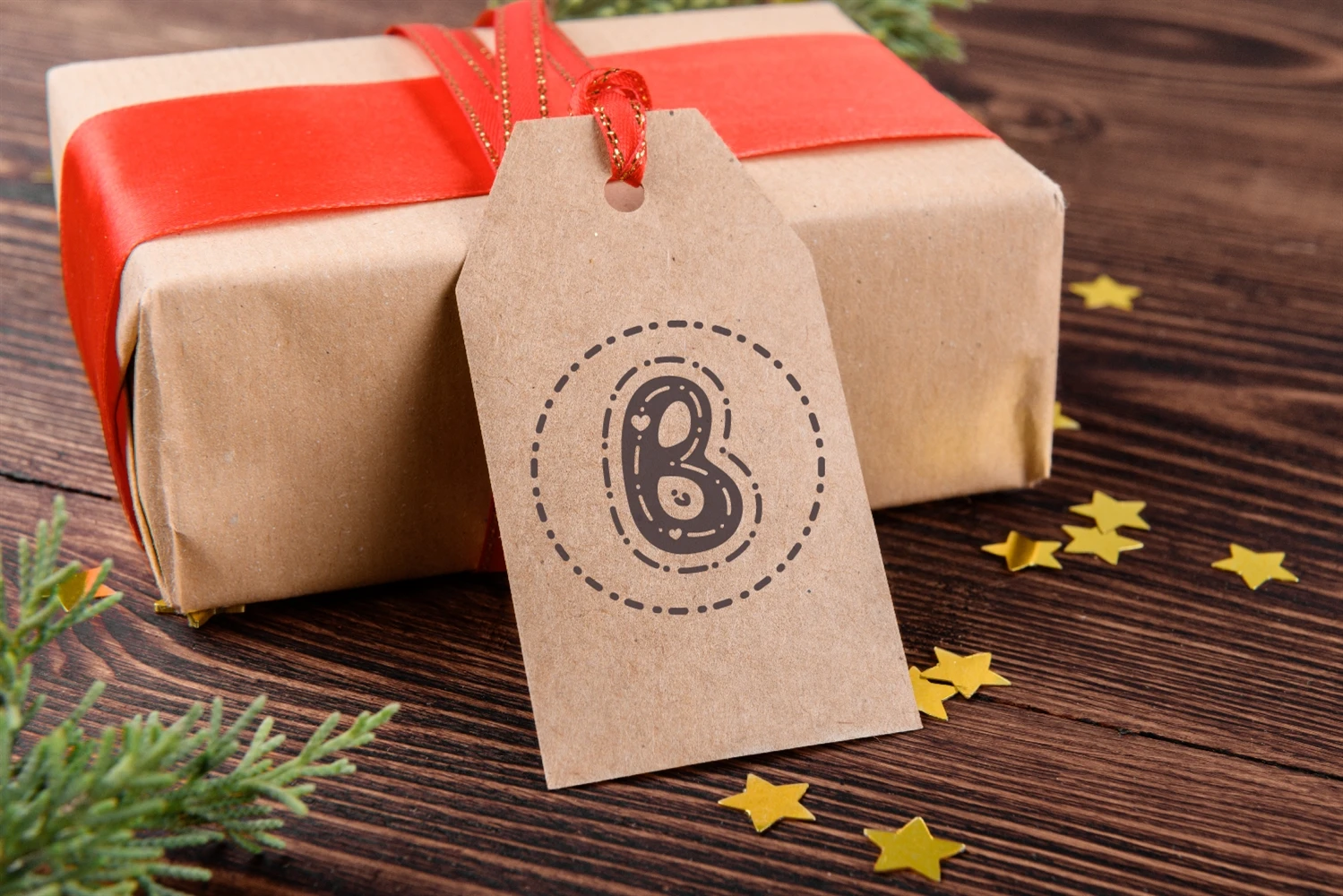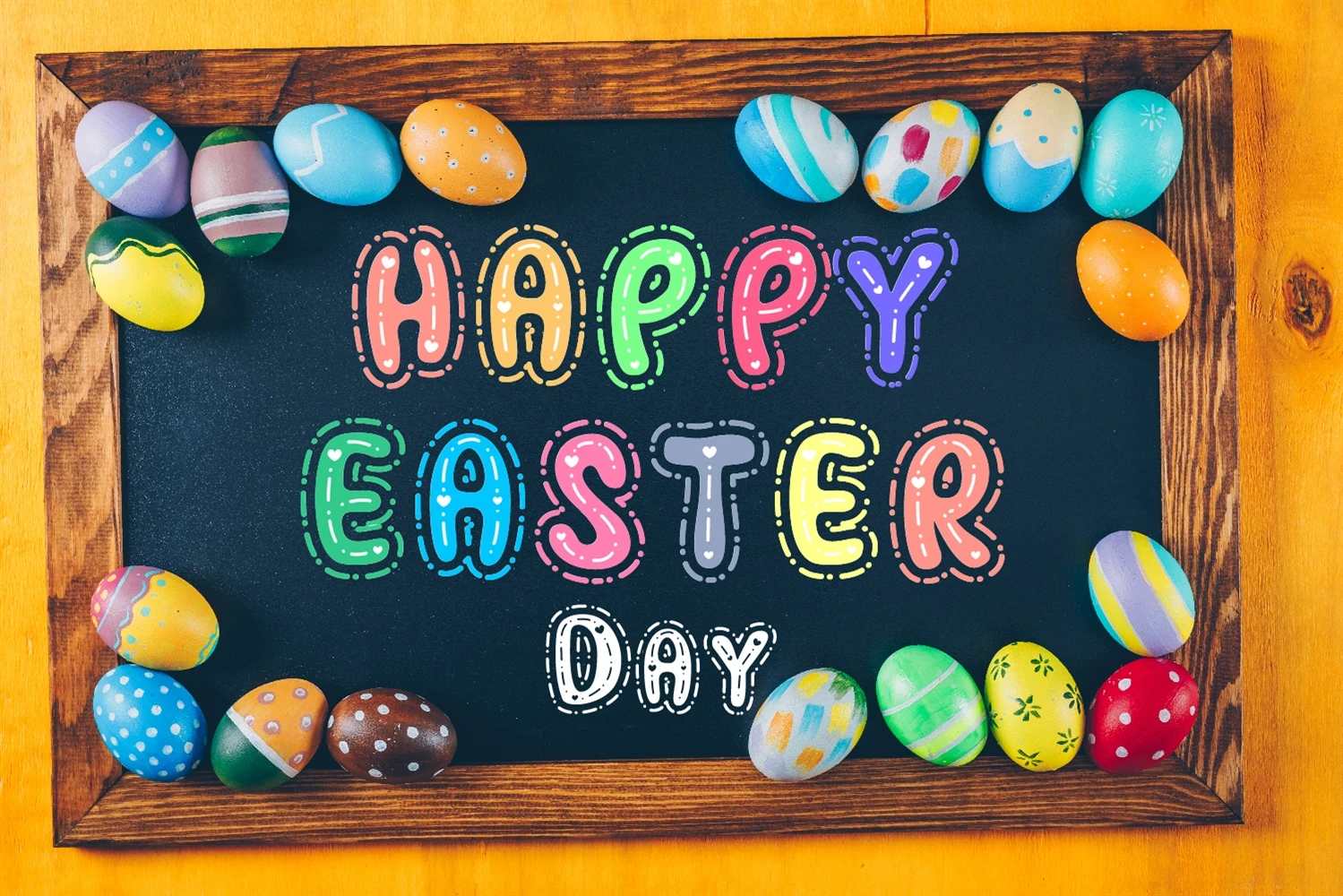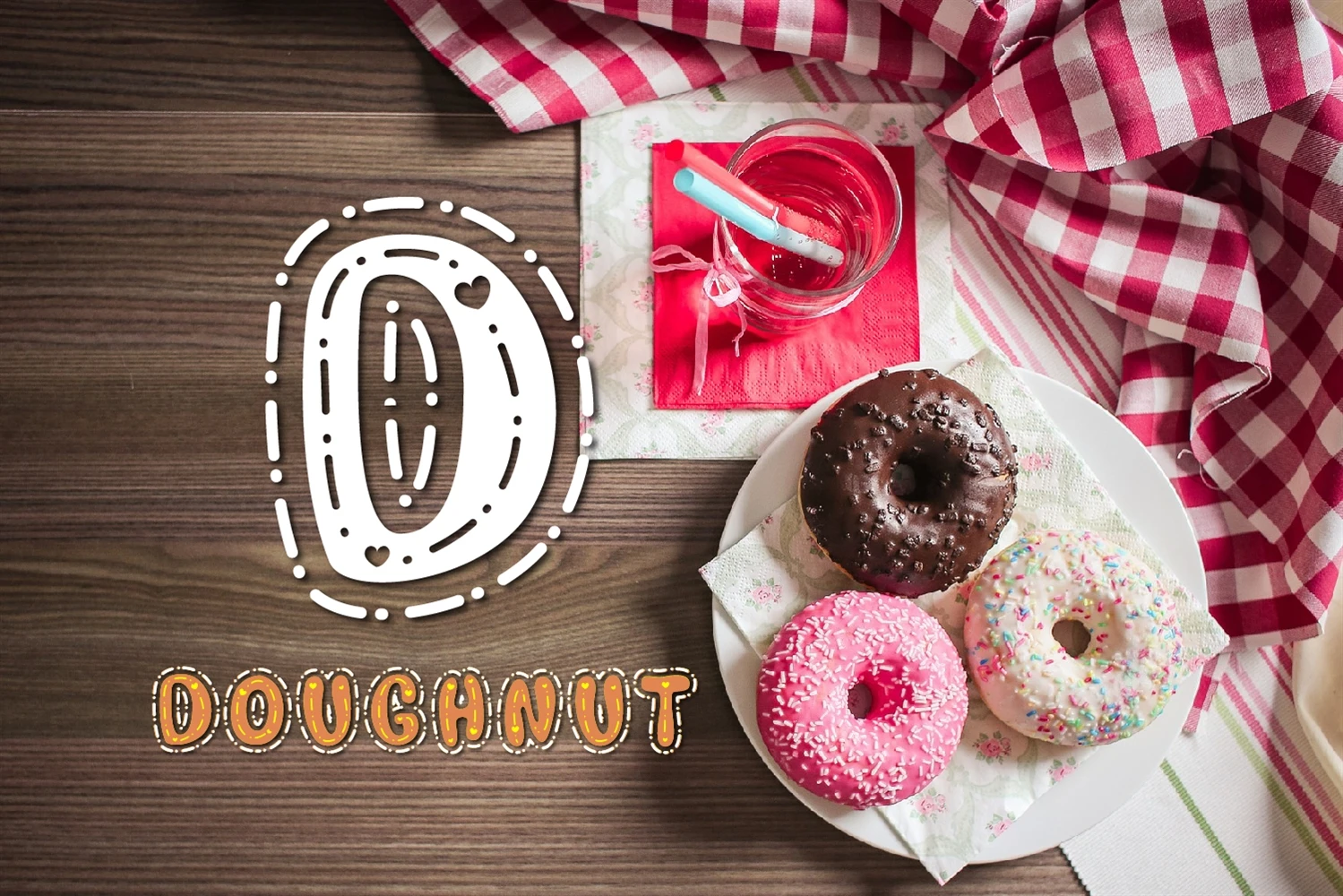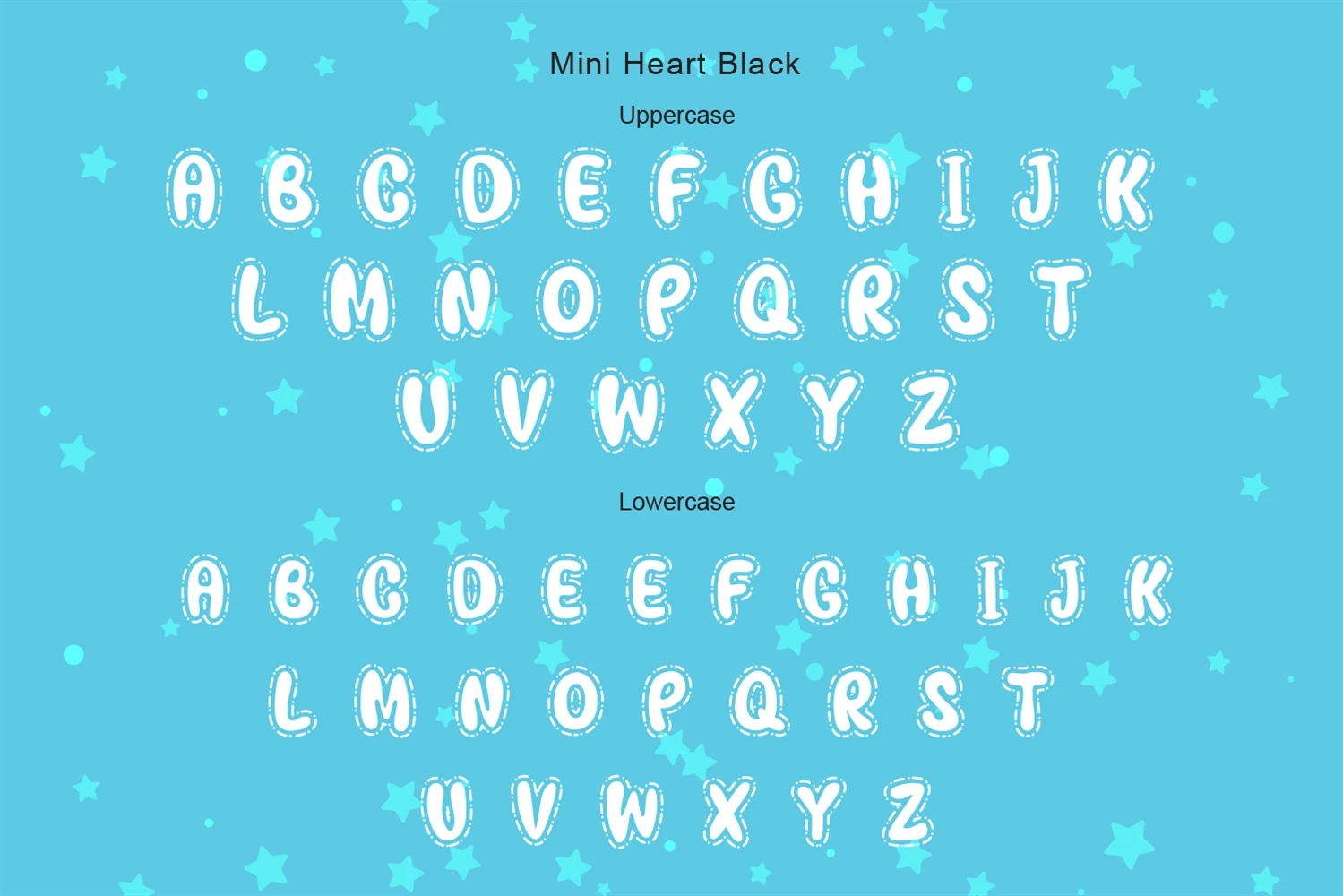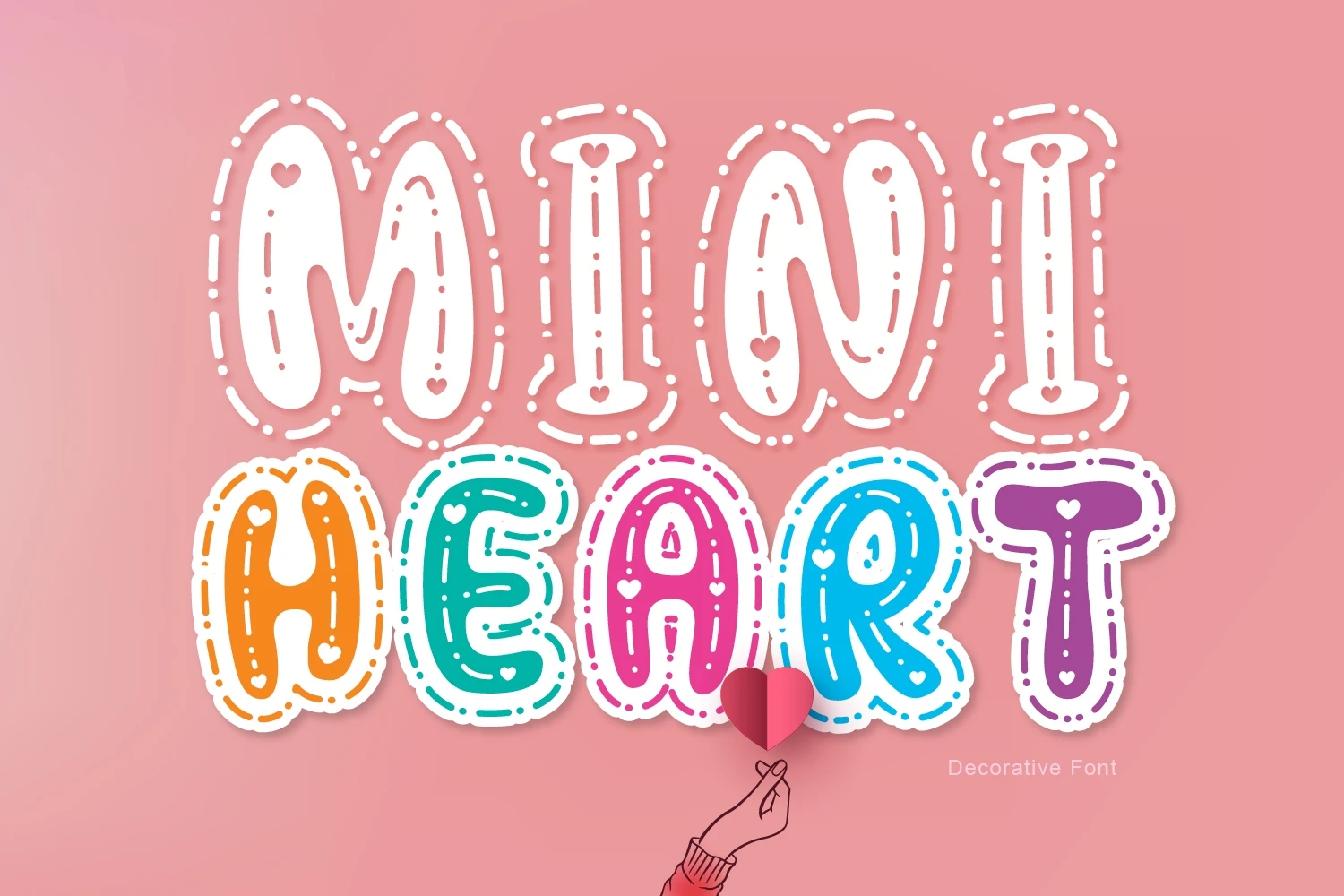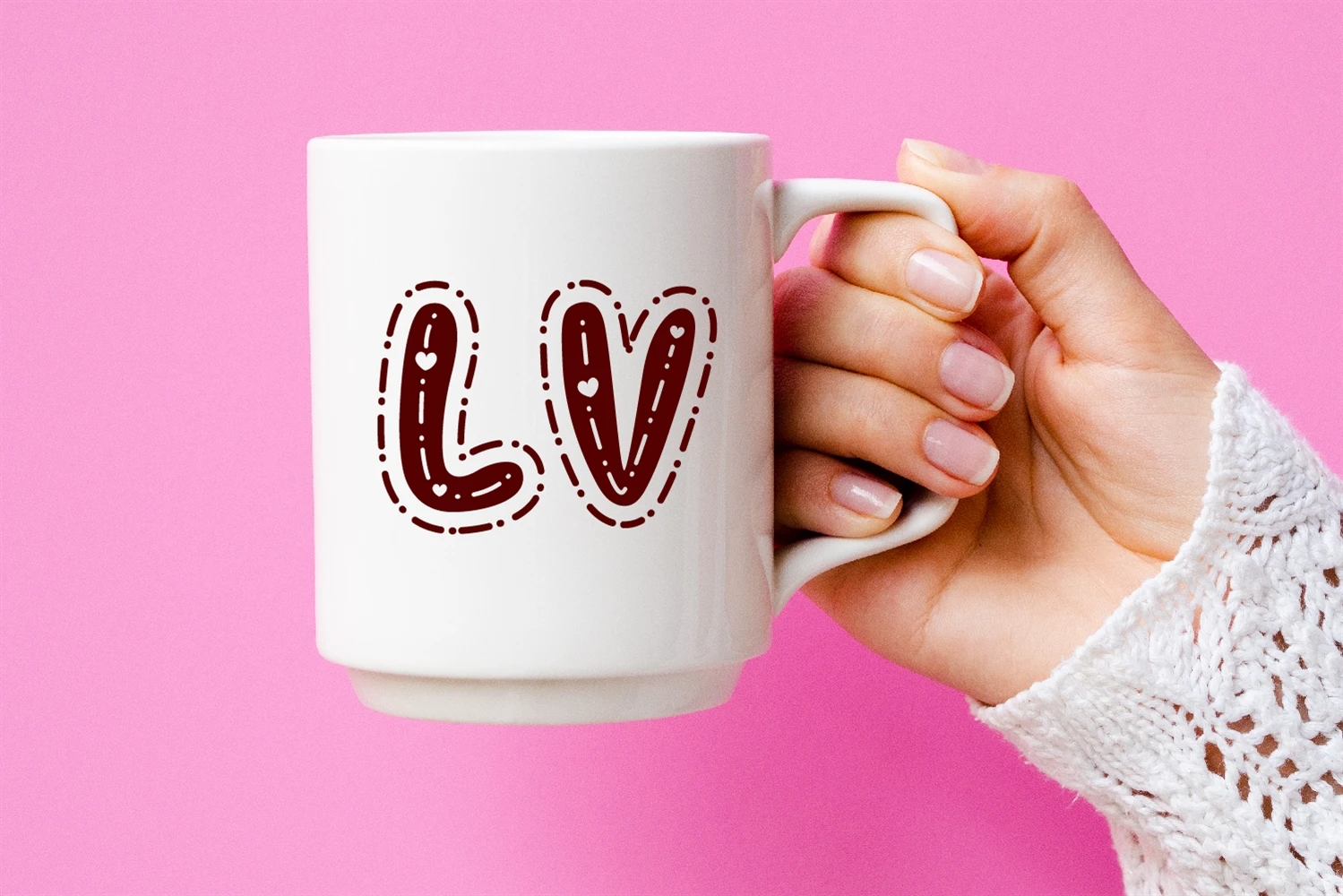
Mini Heart is a playful decorative font. You can use it to create unique designs, book covers, birthday cards, greeting cards, as well as many other.